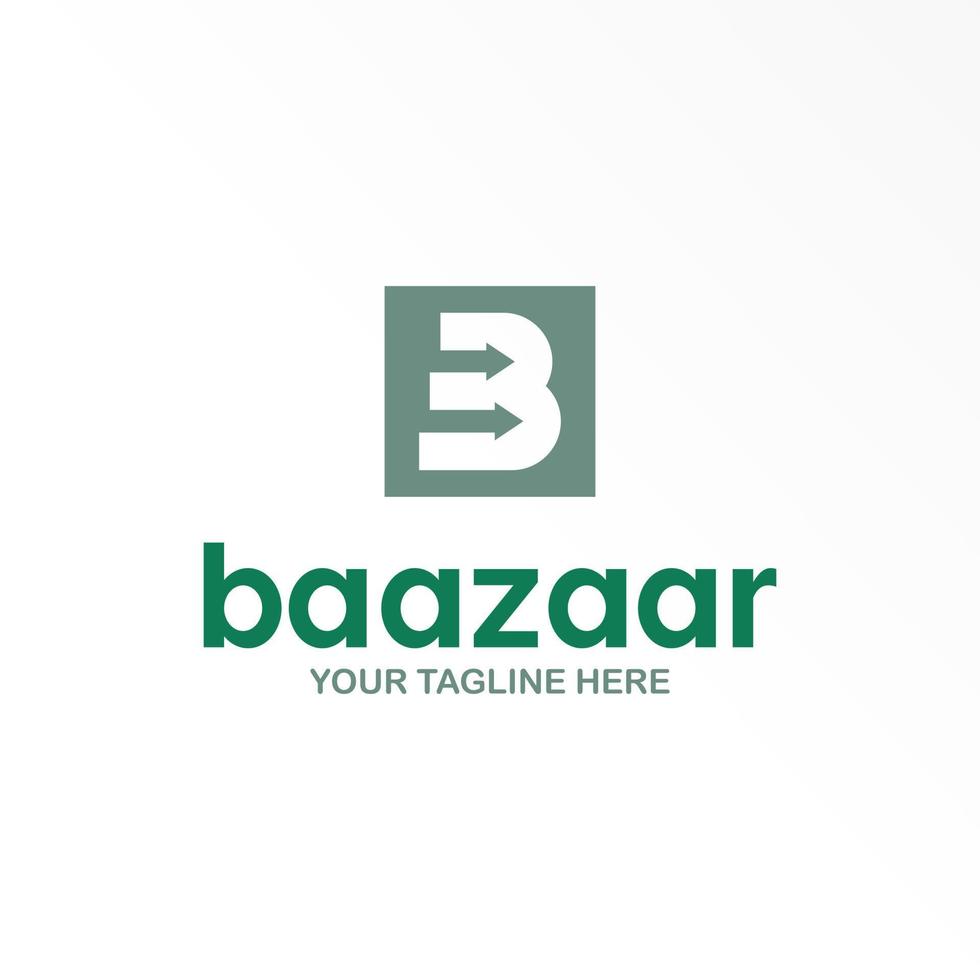
Letter or word B font with Arrow in block square image graphic icon logo design abstract concept vector stock. Can be used as a symbol related to initial or increase. Pro Vector